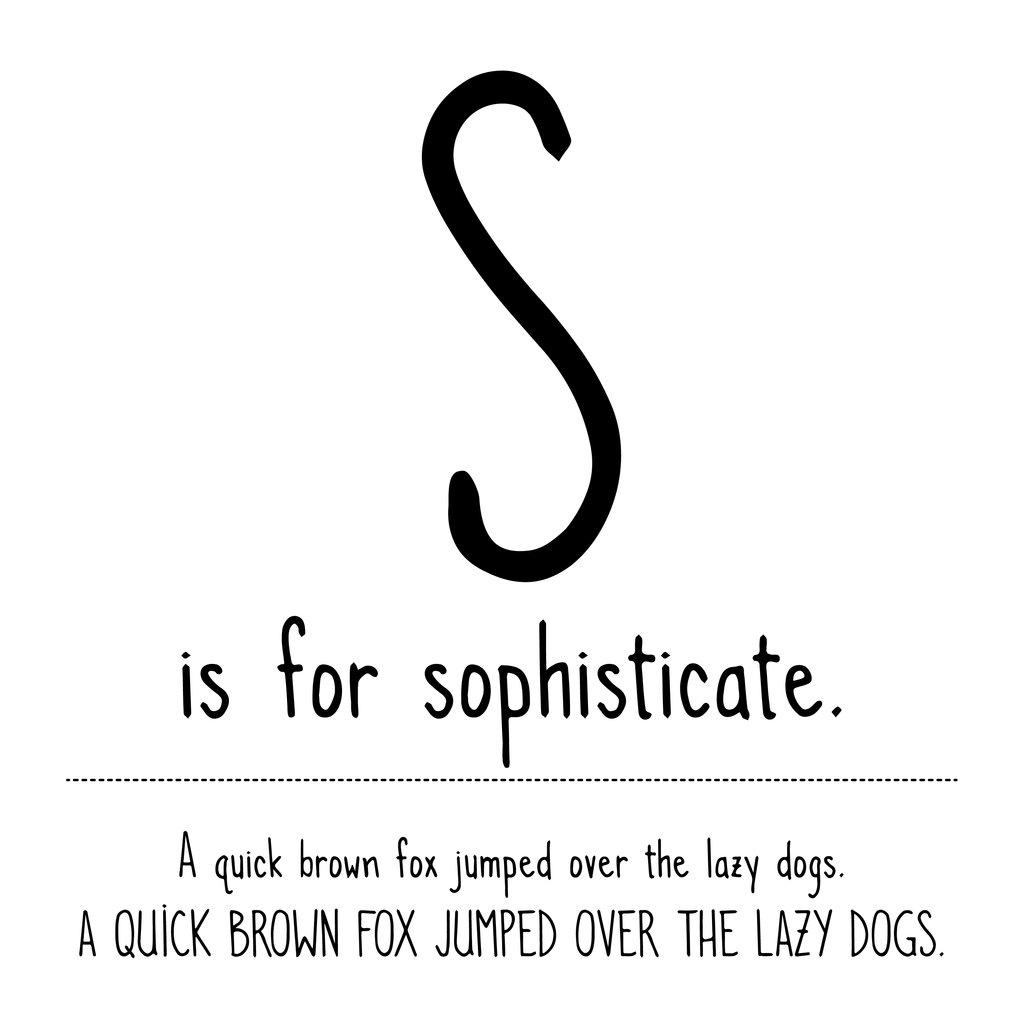
Murderino Family
The Murderino family is inspired by some of our time’s most infamous murders and the My Favorite Murder podcast community. After reviewing case materials and prison correspondence from dozens of high-profile cases, this first collection of Murderino typefaces was designed to recreate the feeling of writings from the JonBenet Ramsey case, the Unabomber, and the Zodiac Killer.